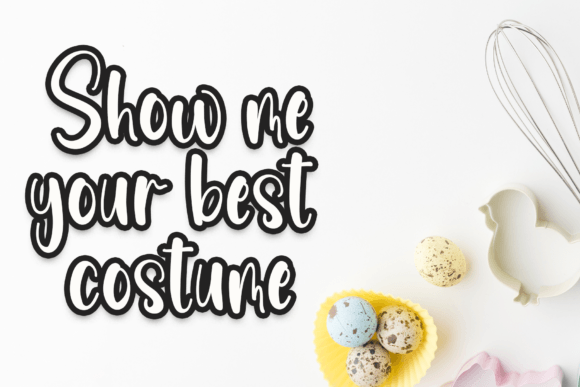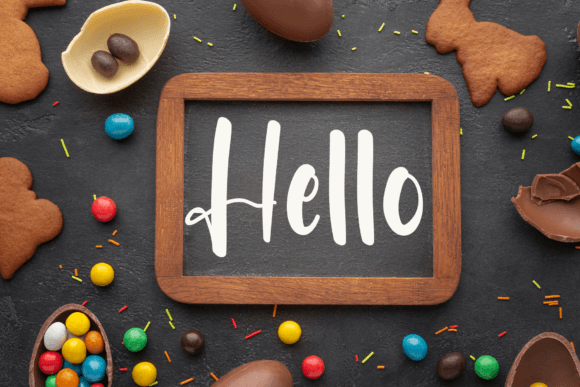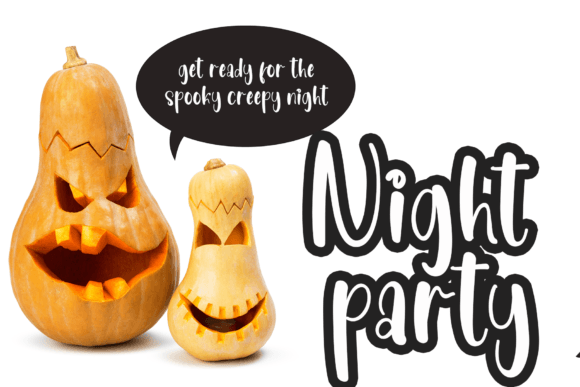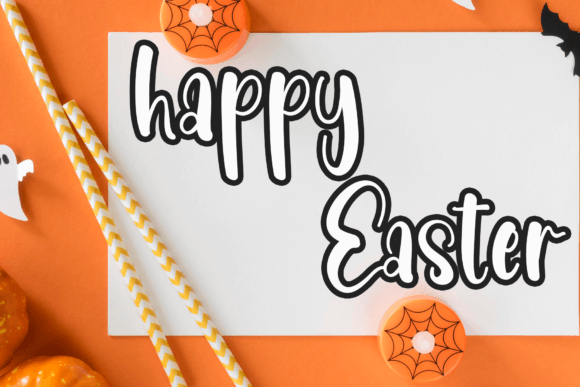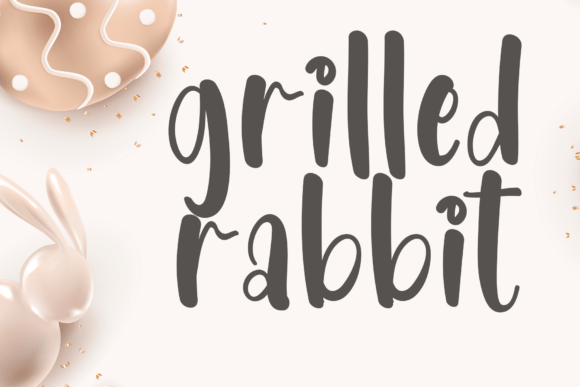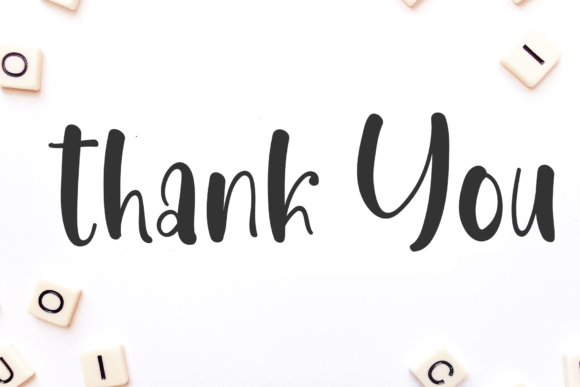
The Perfect Blend of Classic Elegance and Modern Flair
There’s something magical about the Easter season, don’t you think? The vibrant colors, the sweet scents, and the promise of new beginnings. For designers, Easter can be a time of inspiration, a chance to infuse our work with a sense of renewal and possibility. And what better way to capture that feeling than with a beautiful, timeless font?
Enter the After Easter Font, a stunning handwritten font that exudes a contemporary atmosphere and impeccable form. This elegant typeface is inspired by classic calligraphy, with a balanced and varied design that adds a touch of sophistication to any project. Whether you’re creating a wedding invitation, a branding campaign, or a social media post, the After Easter Font is the perfect choice to elevate your work and make it truly unforgettable.
For designers, the After Easter Font is a valuable tool that can help bring your creative vision to life. Its unique blend of classic and modern elements makes it versatile and adaptable, perfect for a wide range of projects and styles. So why settle for a generic font when you can make a statement with the After Easter Font?
After Easter Font Key Features
- Resolution: Designed to be highly legible at various resolutions, including print and digital formats
- Unique Characteristics: Features a unique, hand-drawn feel with a mix of geometric and organic elements, creating a distinctive visual identity
- Language Support: Supports a wide range of languages, including Latin, Cyrillic, and Greek scripts
- Kerning and Ligatures: Includes advanced kerning and ligature features to ensure smooth text rendering and improved readability
After Easter Font Review
Overall, I’d say the “After Easter Font” is a decent addition to any designer’s arsenal. ✨ It has a unique, hand-drawn feel that can add a touch of whimsy to any project.
- ✨ The font’s irregularities and imperfections make it feel more human and less machine-made.
- ✨ The font is highly customizable, allowing designers to adjust the size, color, and spacing to fit their project’s needs.
- ✨ The font is available in a range of weights, from light to bold, making it versatile for use in headings and body text.
- ⚠️ The font may not be suitable for large blocks of text, as the irregularities can make it difficult to read.
- ⚠️ The font may not be as effective in digital applications, as the hand-drawn feel can be lost on smaller screens.
- ⚠️ Some users may find the font too ornate or distracting, especially in more formal or professional projects.
Overall, I’d recommend the “After Easter Font” for projects that require a touch of personality and whimsy. Just be sure to use it thoughtfully and in moderation.
The “After Easter Font” is a versatile font that can be used for various designs, including Easter-themed graphics, spring-inspired invitations, and more. Some tips to get the most out of this font include:
– Using it in combination with pastel colors to create a soft, spring-inspired look.
– Experimenting with different font sizes and styles to add visual interest.
– Using it in conjunction with other Easter-themed graphics and elements to create a cohesive design.